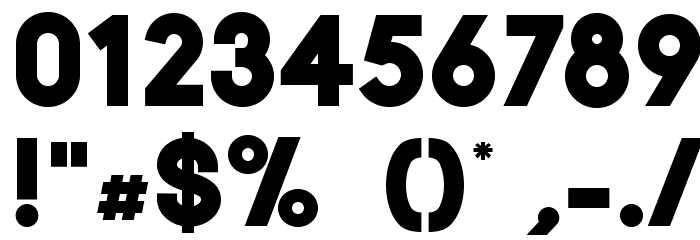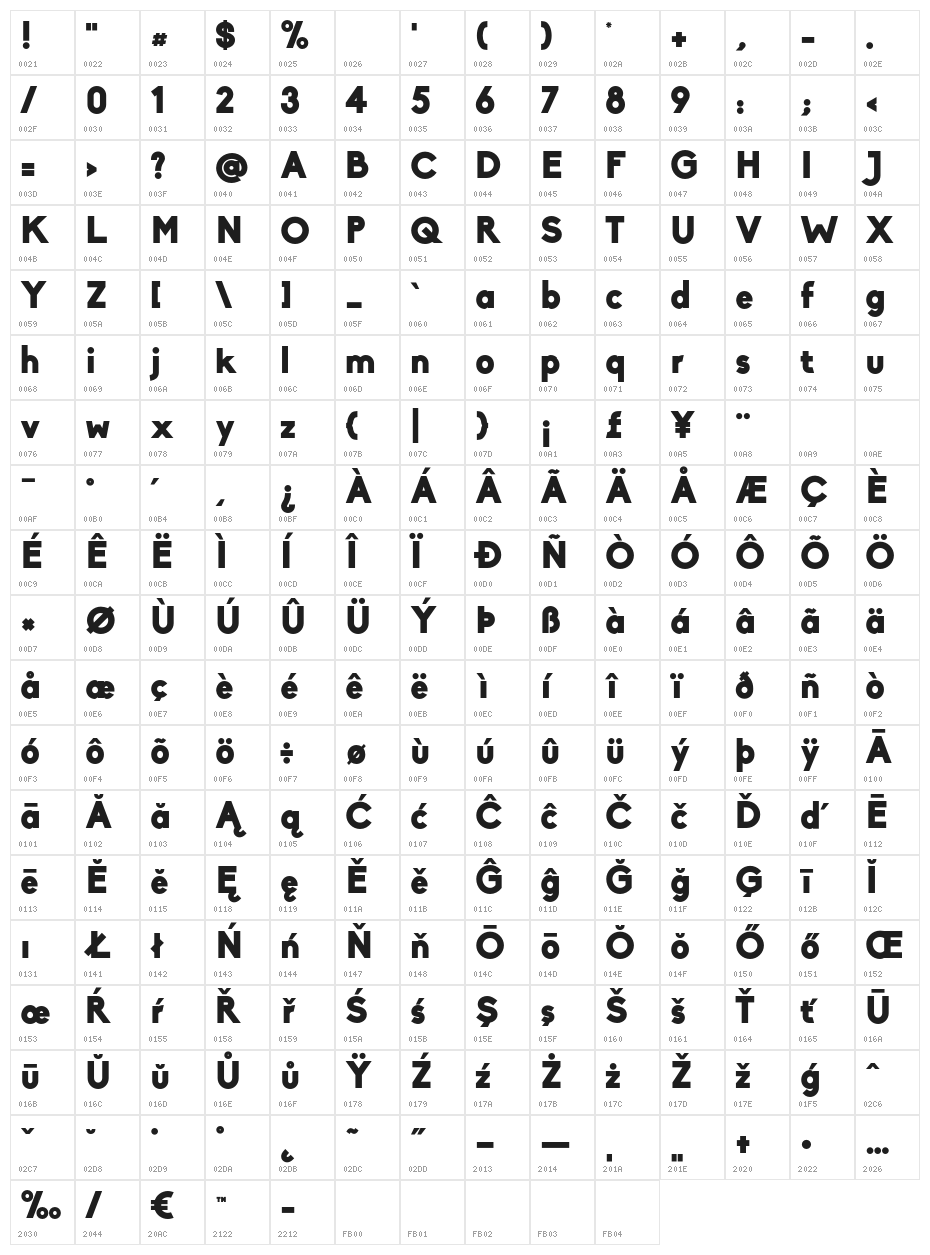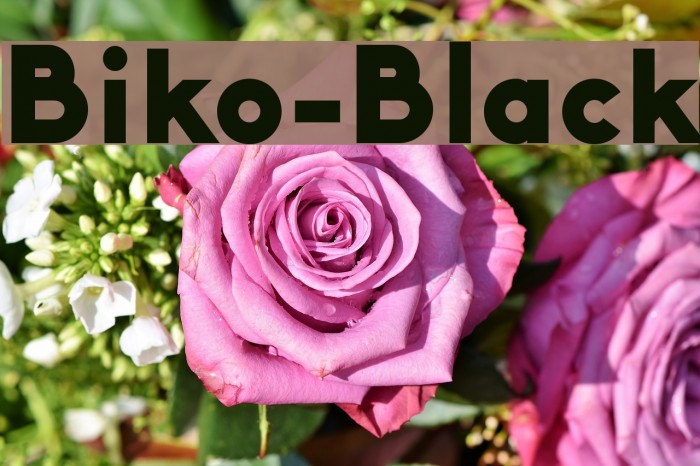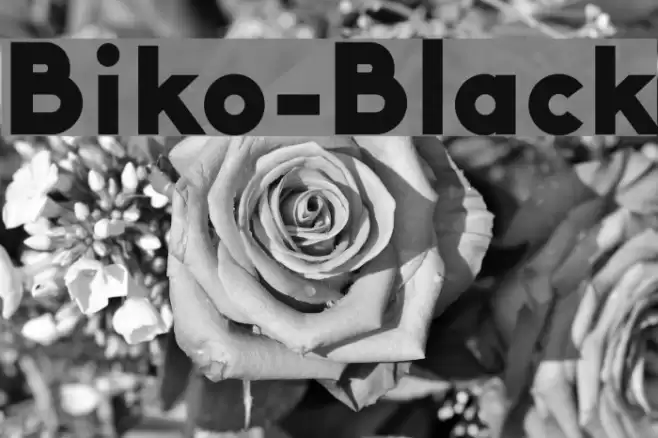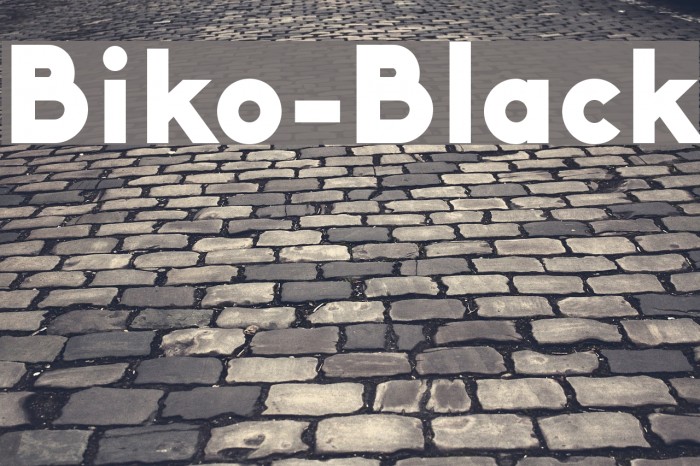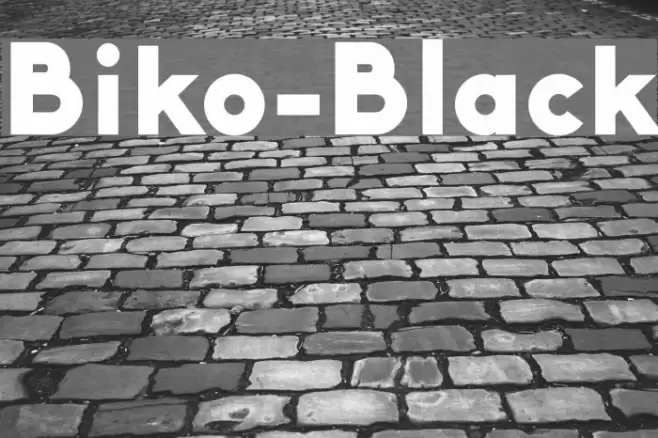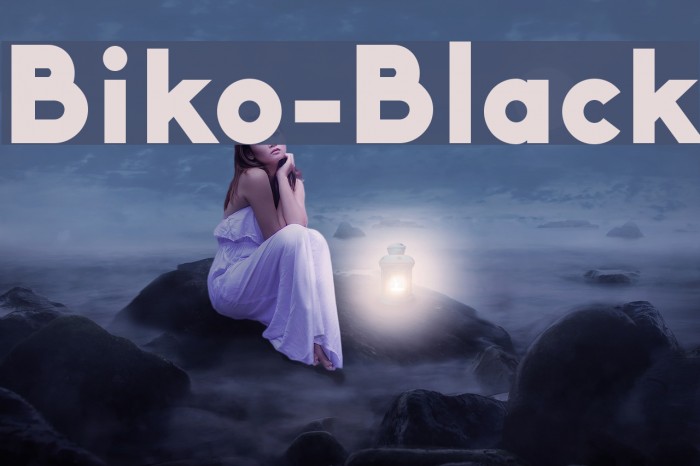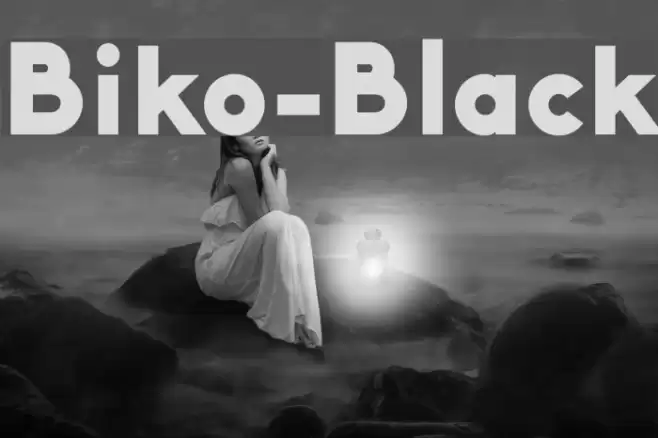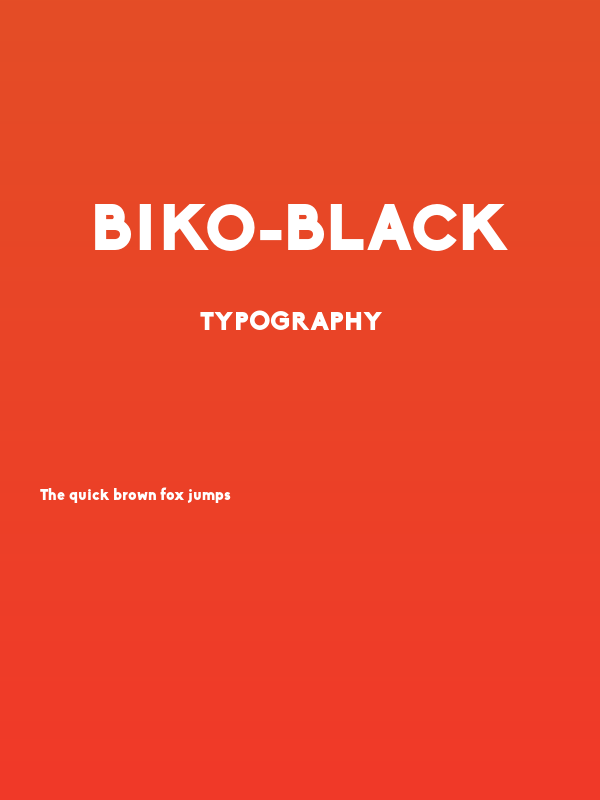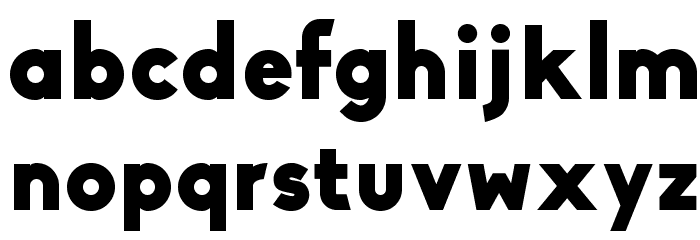
Biko-Black Font
Biko-Black Description
This font features a bold and modern sans-serif style with clean, geometric shapes. The characters are well-defined with a consistent stroke width, giving it a strong and impactful appearance. The uppercase letters are particularly striking, with a uniform height and width that convey a sense of stability and confidence. The lowercase letters maintain the same geometric precision, making them highly legible. The numerals are bold and clear, ensuring readability in various contexts. Special characters are included, maintaining the font's cohesive design. Overall, this font is versatile and suitable for a wide range of design applications.
| Proposed Projects | Ideal for branding, headlines, posters, and digital media where a bold statement is needed. |